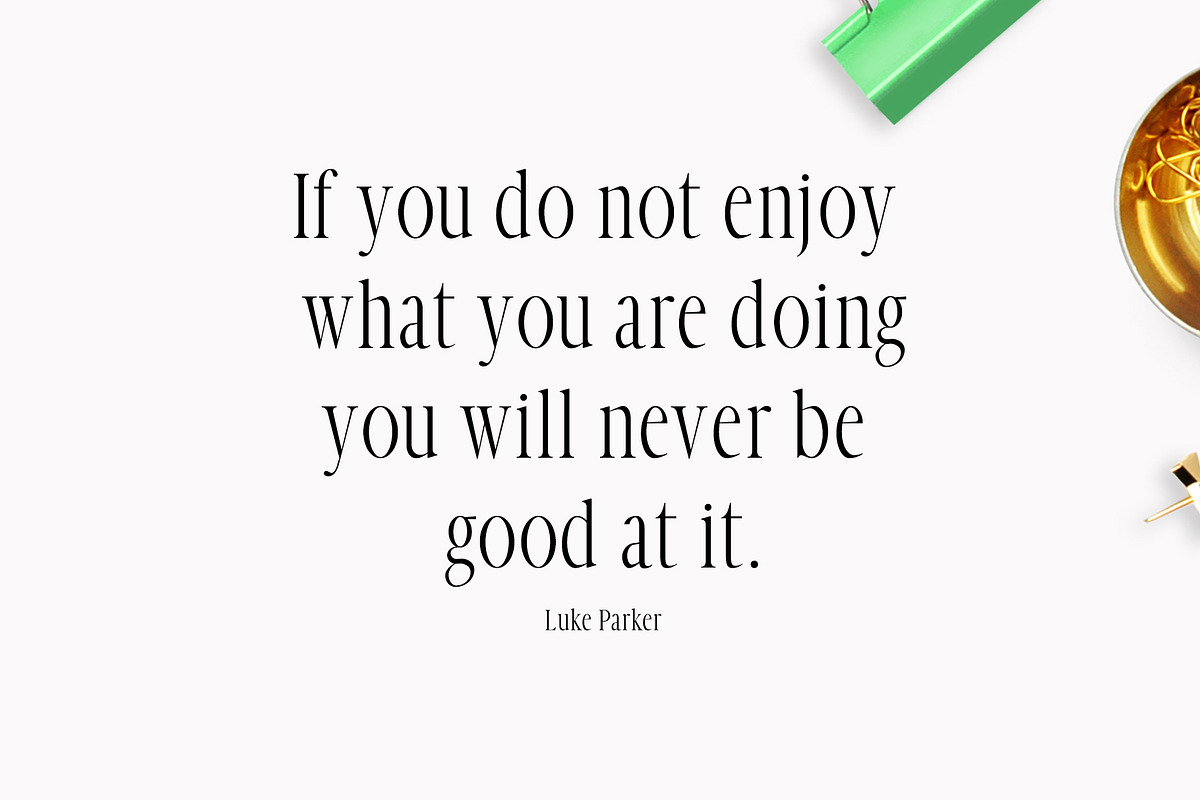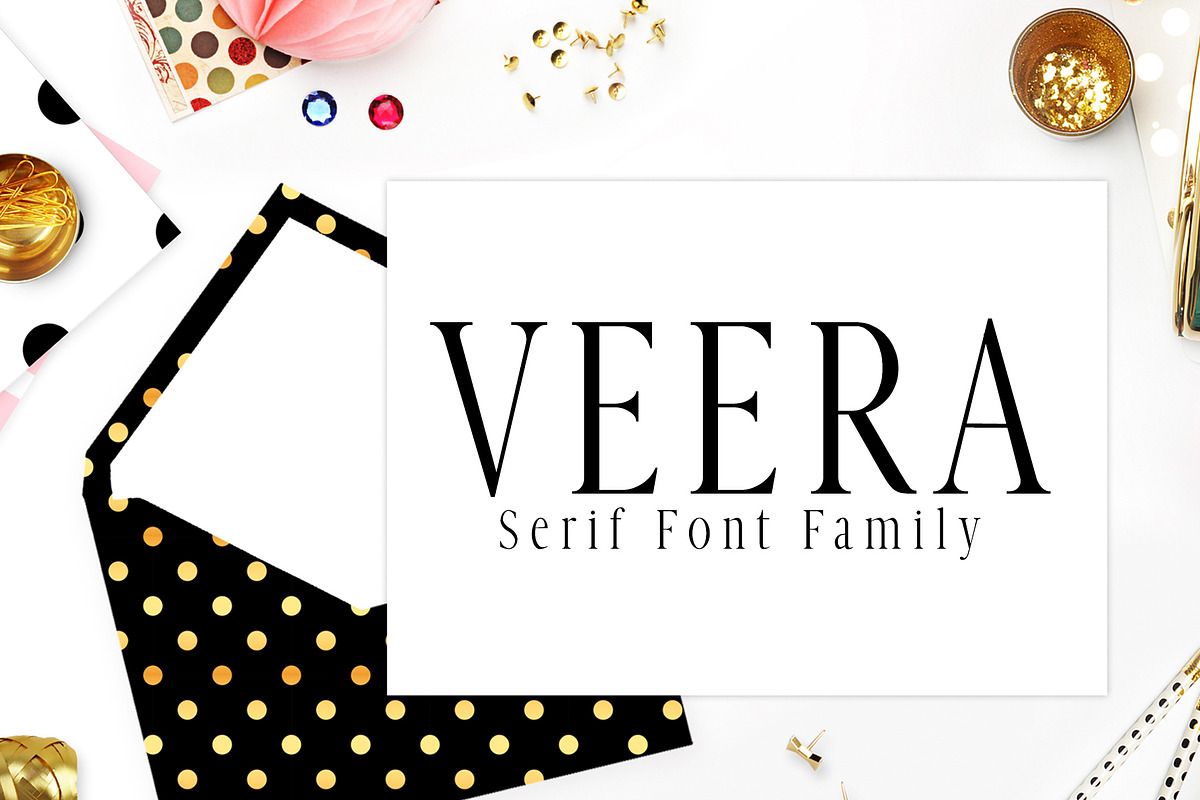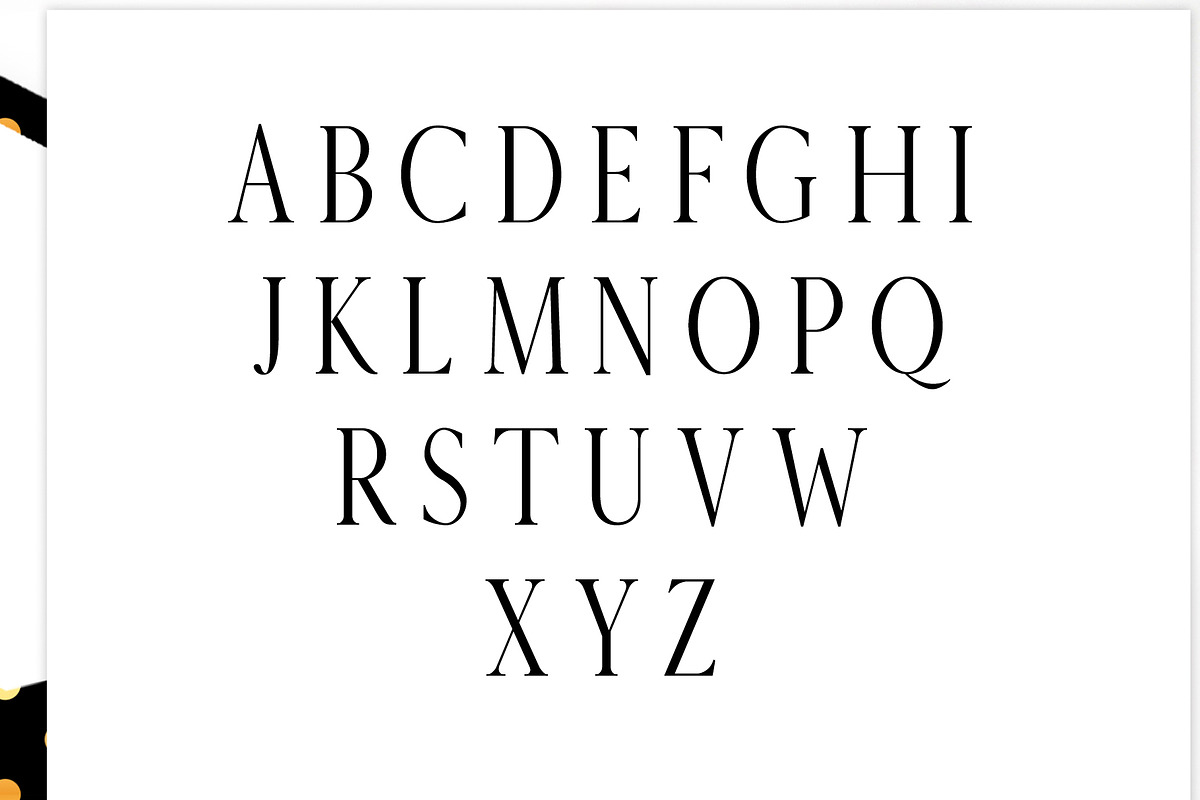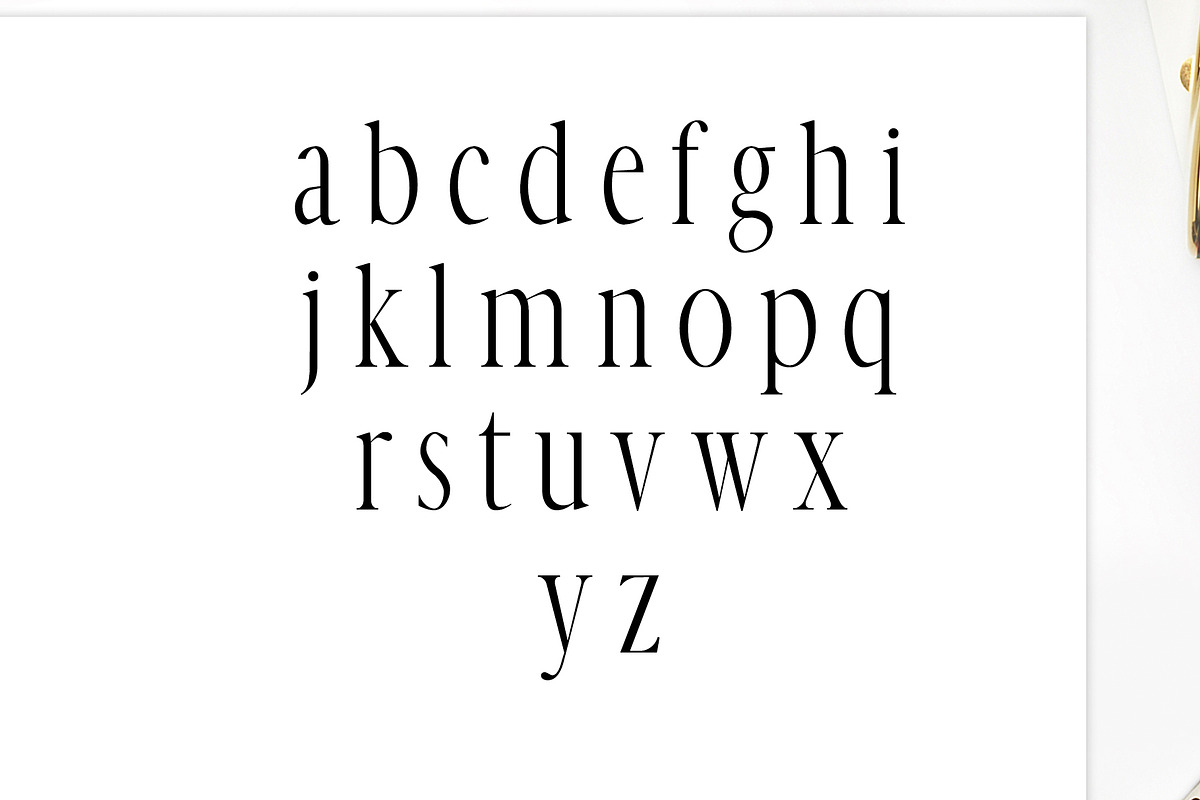
Veera Serif 4 Font Family Pack
Veera Serif 4 Font Family Pack by Creativetacos is a font selected for branding, posters, packaging, typography.
- Font Weight: Regular, Thin, Bold and Extra Bold
Why Veera Serif 4 Font Family Pack is worth a look
Veera Serif 4 Font Family Pack by Creativetacos fits naturally into Branding, posters, packaging, typography.